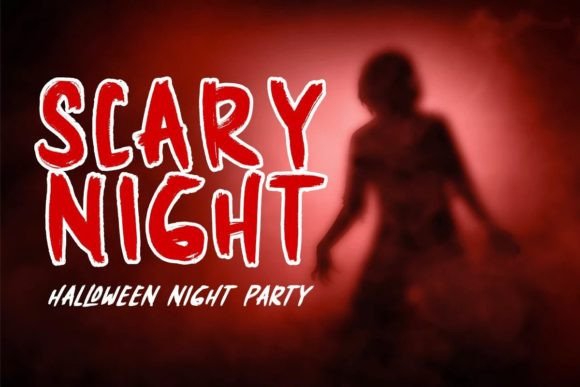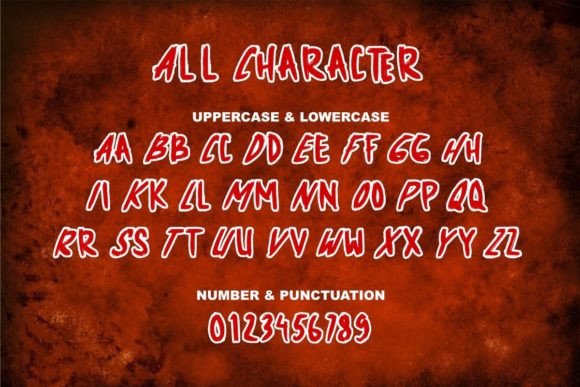
Helena Bloods Font
Helena Bloods is an impactful and spooky typeface. The intense brush stroke design makes it perfect for your Halloween crafts and projects.